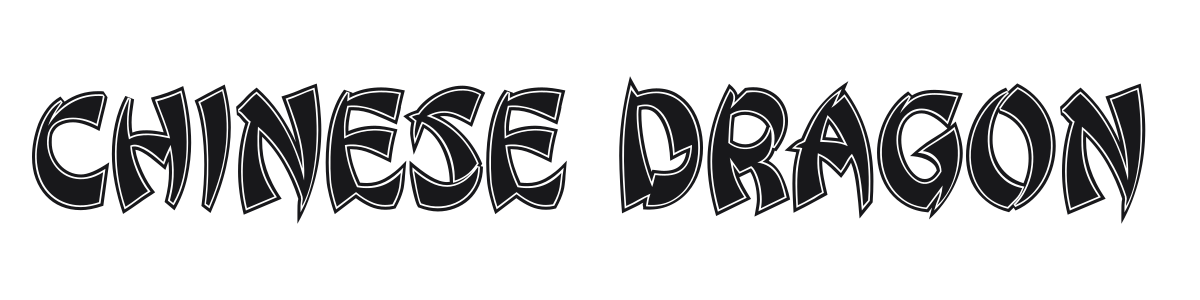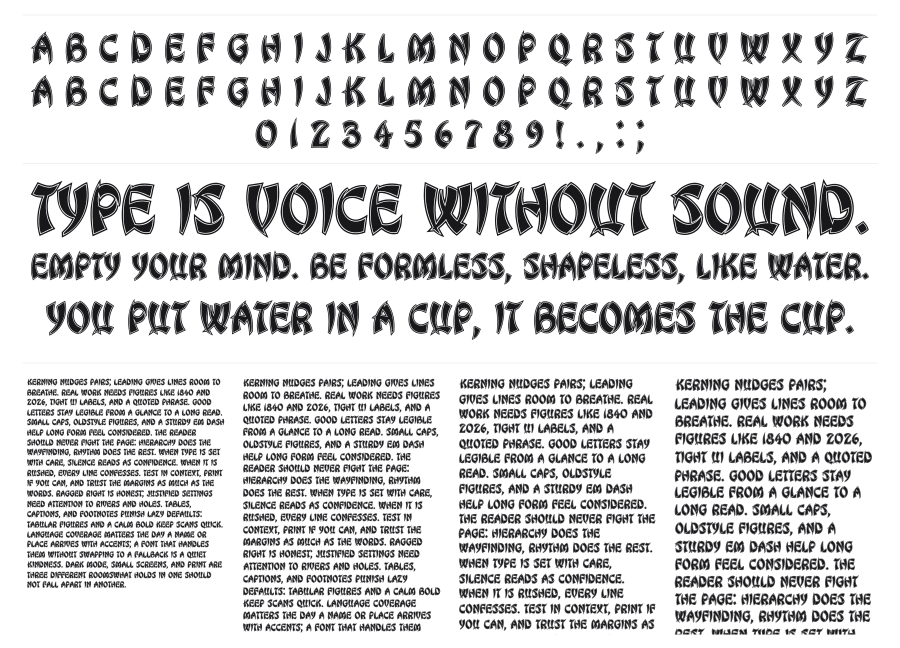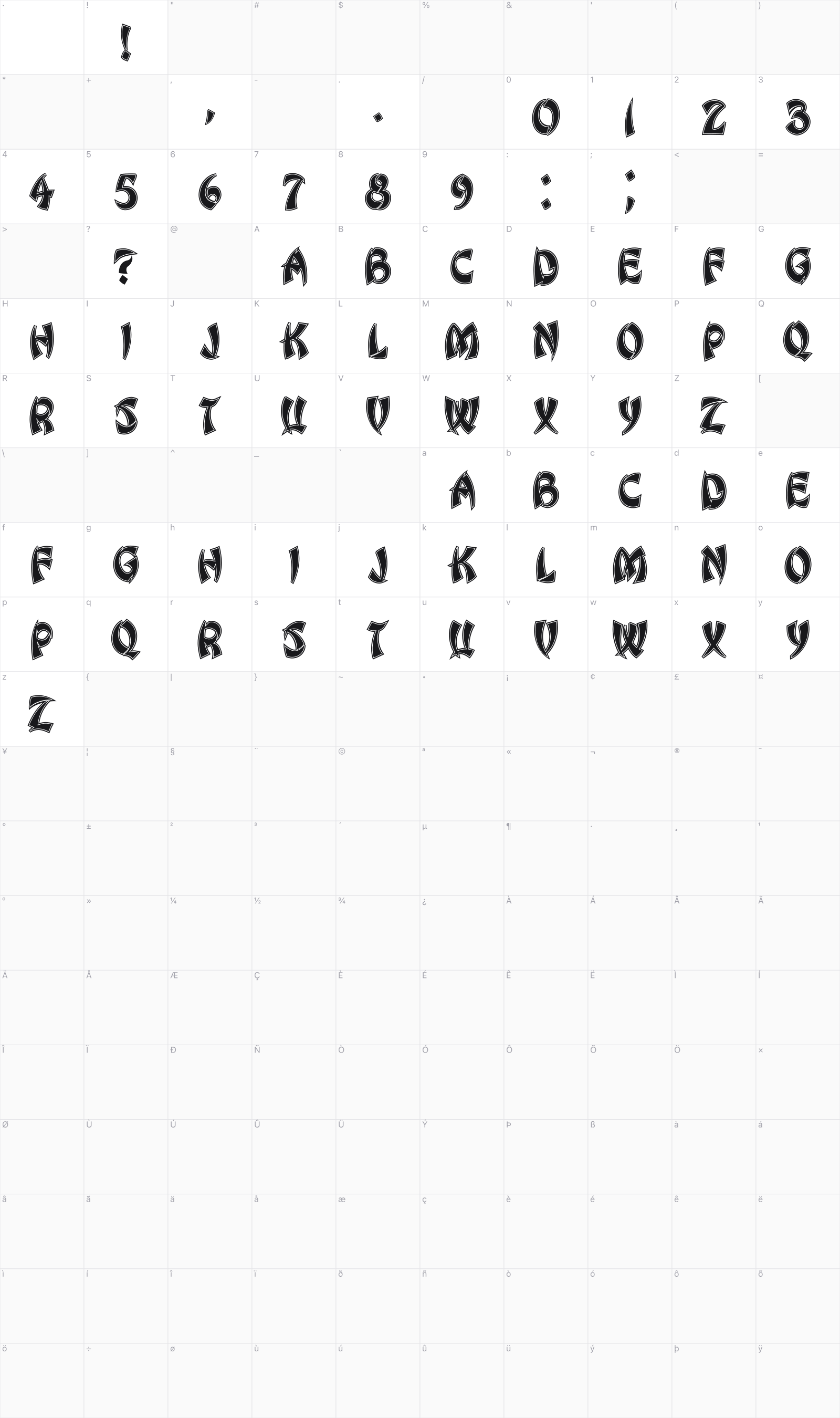
Chinese Dragon
Chinese Dragon is a bold display typeface that fuses blackletter angularity with East Asian brush calligraphy styling. Each character carries a dramatic inline outline, sharp pointed terminals, and faceted stroke endings that give the whole thing an engraved, woodblock feel. It reads as fierce and theatrical, suited to band logos, game titles, restaurant signage, and anything that needs a commanding presence.